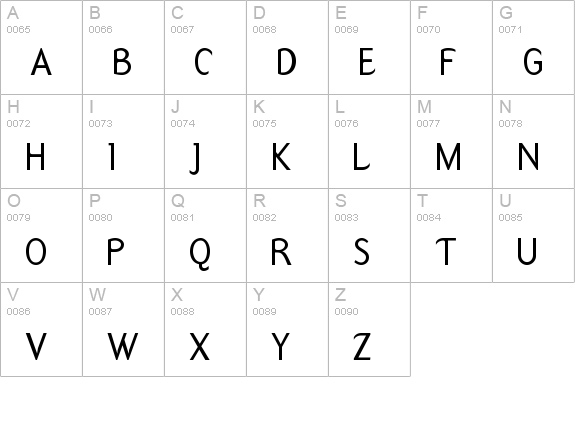
TemaCantanteSans-Regular is the standard, neutral variant in the TemaCantanteSans typeface family \xE2\x80\x94 well suited to general body text, paragraphs, and standard typographic work.
TemaCantanteSans-Regular is a modern and stylish font that exudes sophistication and elegance. With its clean lines and sleek curves, this font is perfect for a wide range of projects, from branding and advertising to editorial design and digital media. The simplicity of TemaCantanteSans-Regular allows it to be easily legible at any size, making it ideal for both print and digital applications. Whether you're designing a logo, creating a poster, or crafting a website, this versatile font will add a touch of class to your work. One of the most appealing aspects of TemaCantanteSans-Regular is that it is free to use and freely available to download at FontsMarket.com. This means that you can enhance your designs without breaking the bank. Say goodbye to expensive font licenses and hello to creative freedom! The designers of TemaCantanteSans-Regular have taken great care to ensure that every character is meticulously crafted, resulting in a font that is both visually stunning and highly functional. The attention to detail is evident in the balanced letterforms and the harmonious spacing, making this font a pleasure to work with. Whether you're a professional designer or a creative hobbyist, TemaCantanteSans-Regular is a font that will elevate your work to new heights. Its timeless appeal and contemporary style make it a must-have addition to your font collection. So why wait? Head over to FontsMarket.com and download TemaCantanteSans-Regular for free today. With this font in your arsenal, you'll have the power to create stunning designs that are sure to leave a lasting impression.